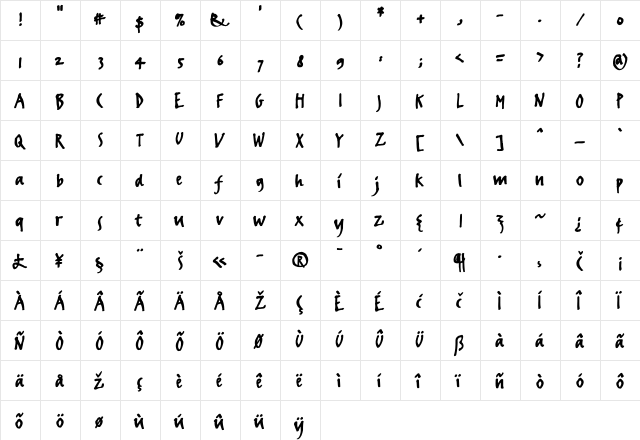
Erikrighthand Medium
Design Context for Erikrighthand Typeface
Erikrighthand flows with the natural rhythm of handwritten lettering, making it ideal for designs that call for warmth and personal expression.
Font Pairing: Combine Erikrighthand with a simple geometric sans for maximum contrast — the tension between flowing curves and clean structure is a classic typographic pairing.
Pro Tip: Pair Erikrighthand with a clean sans-serif for supporting text. The contrast between fluid script and geometric structure creates an elegant typographic hierarchy.